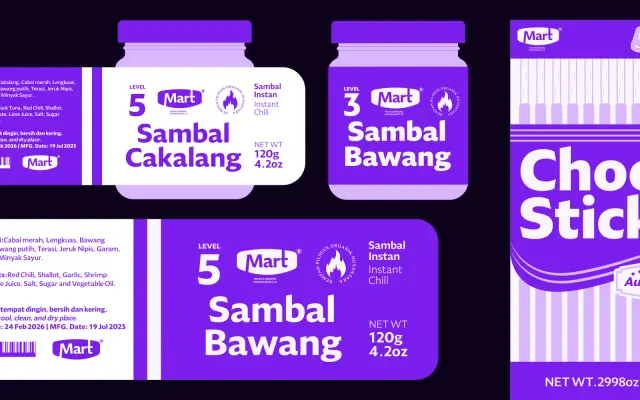
Leksikal Sans
A seven-weight humanist sans with matching italics and variable font support, covering an extensive Latin character set.
Leksikal Sans spans seven weights from Light to Black, each with a corresponding italic, and is offered as a variable font for both upright and italic axes. The character set extends through Latin Extended-A, Extended-B and Latin Extended Additional, giving broad coverage for European and Vietnamese languages. Suited to editorial, branding and text work where a clean, adaptable sans is required.
Leksikal Sans presents upright and italic styles across seven weights with variable font support, consistent with a contemporary humanist sans-serif design intended for editorial and body text use.